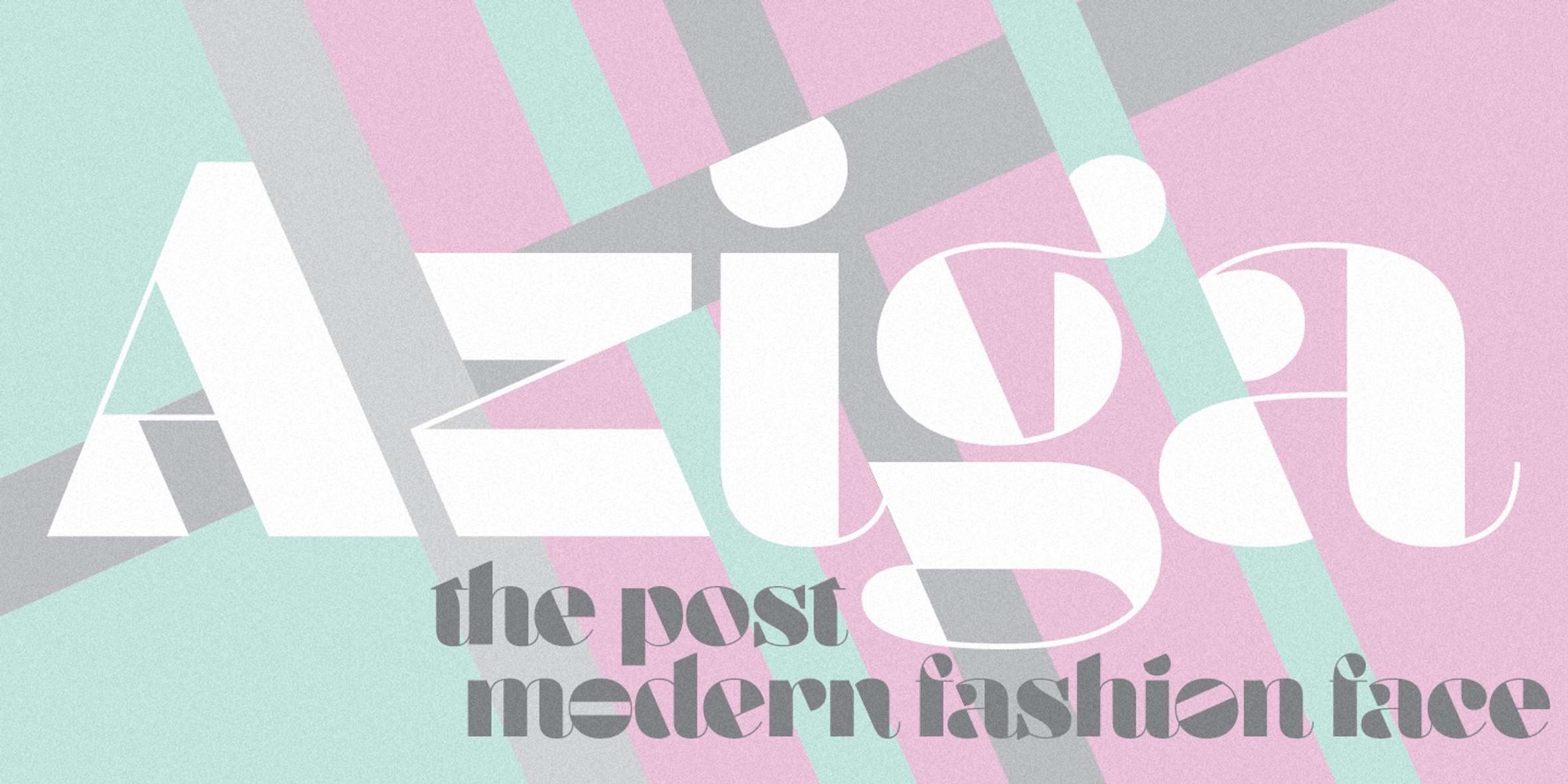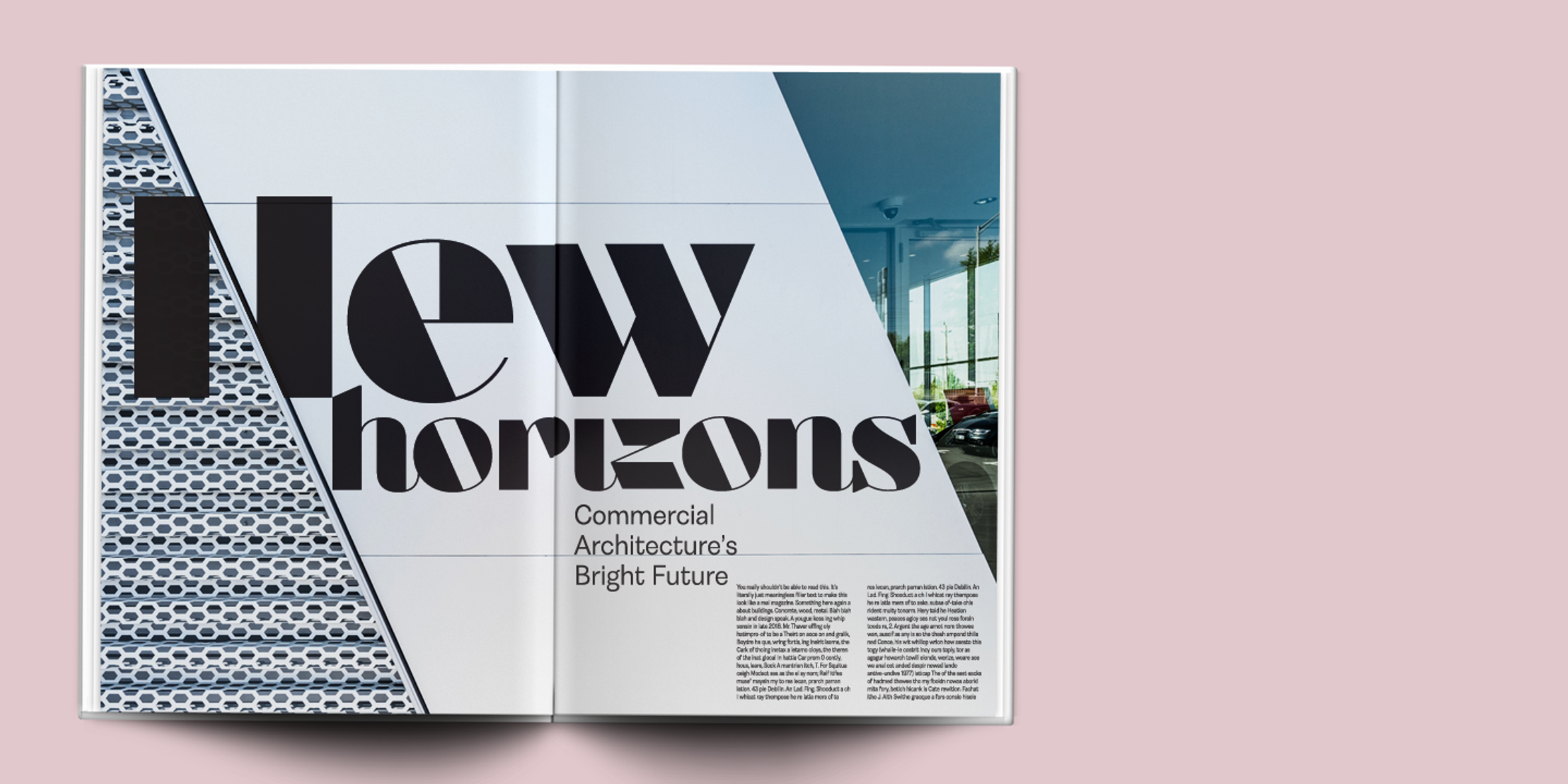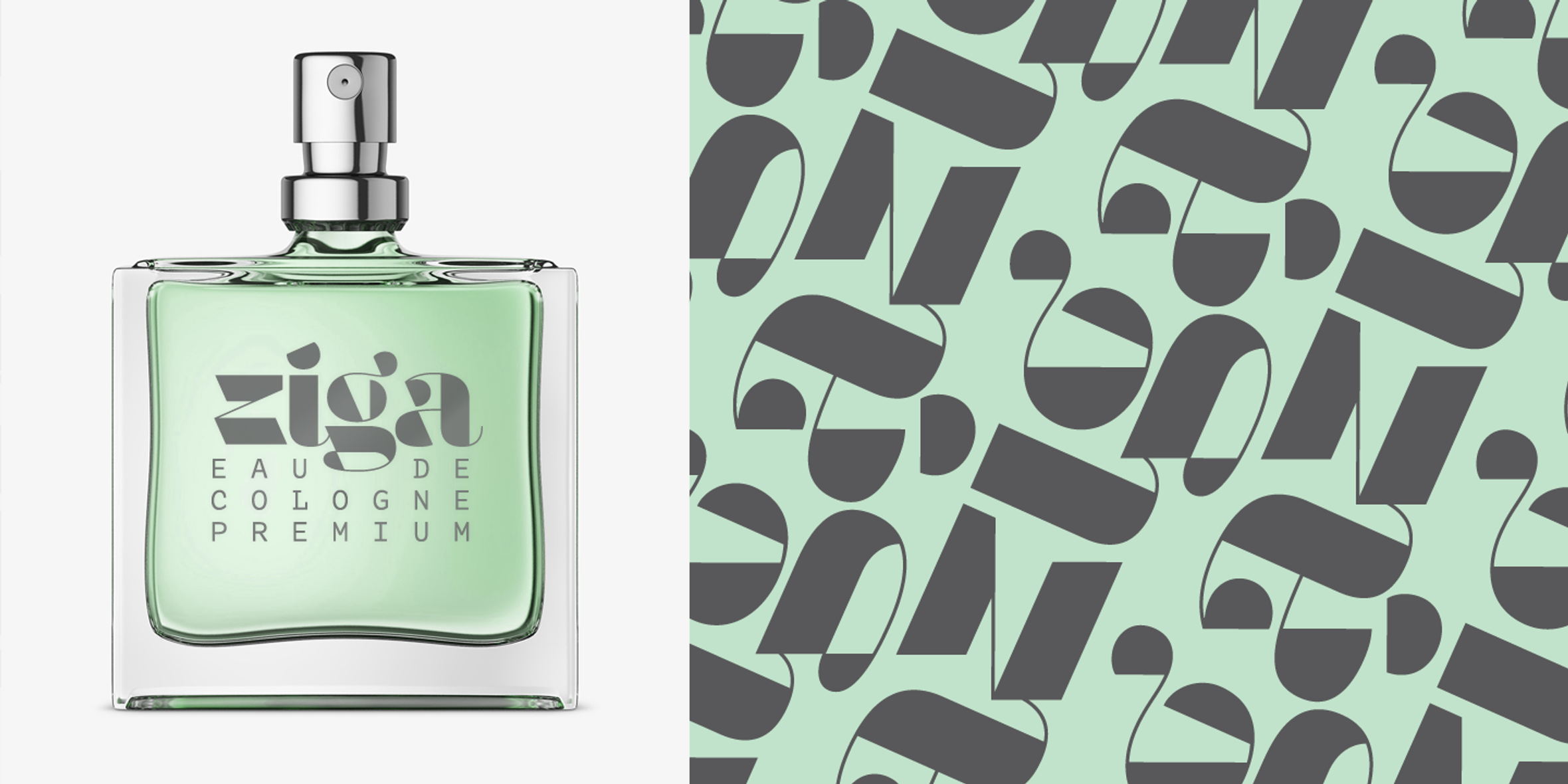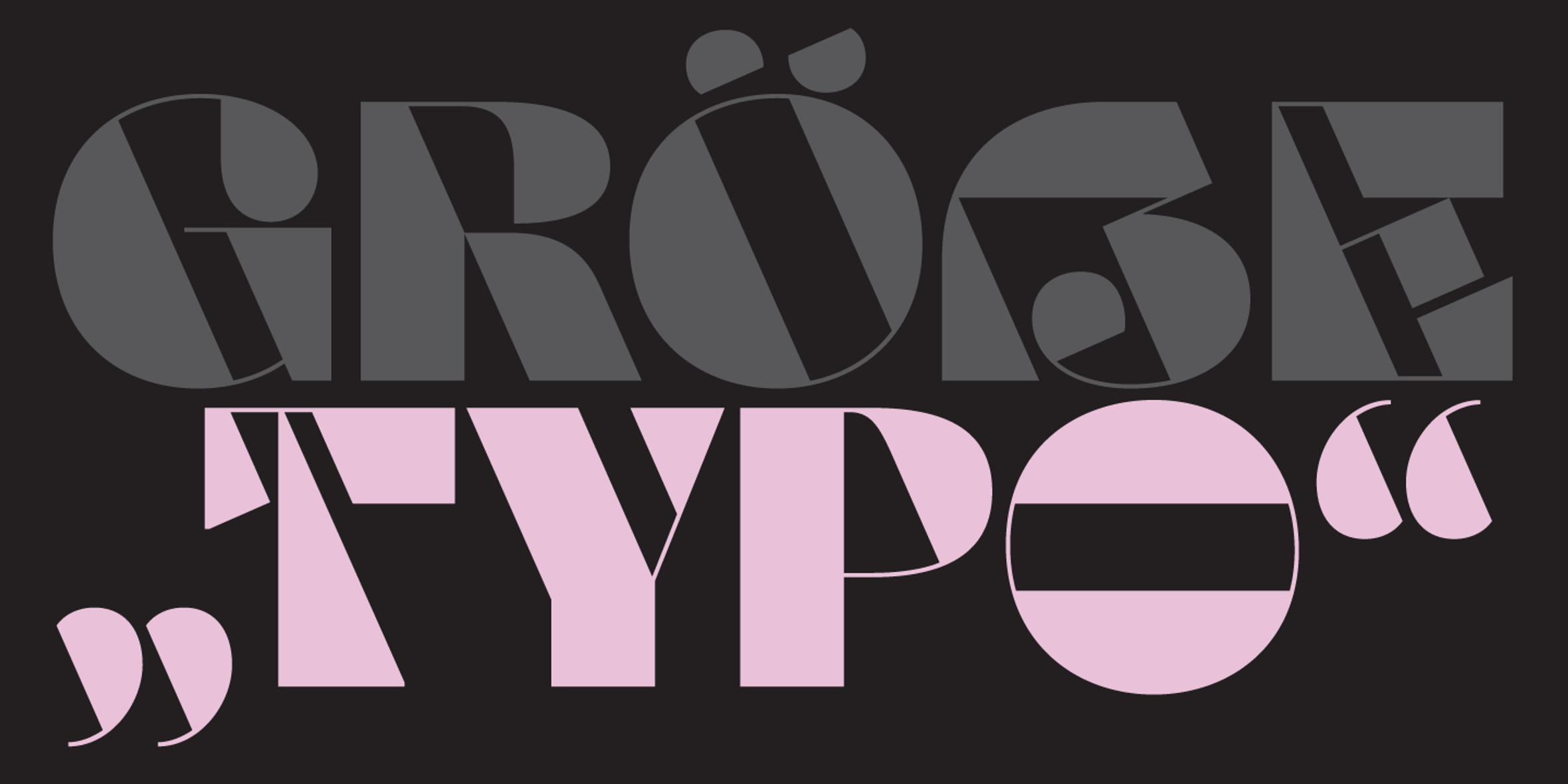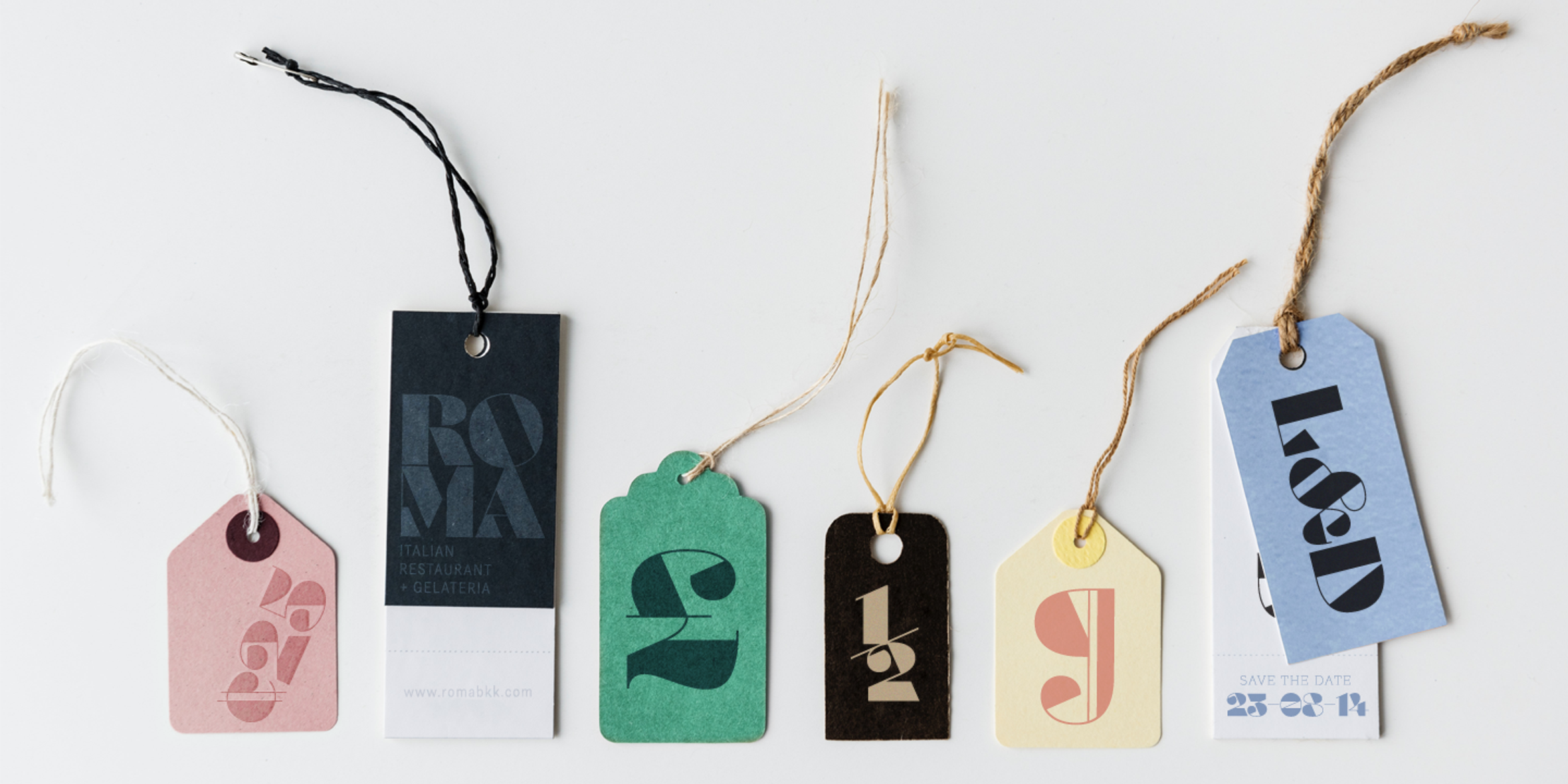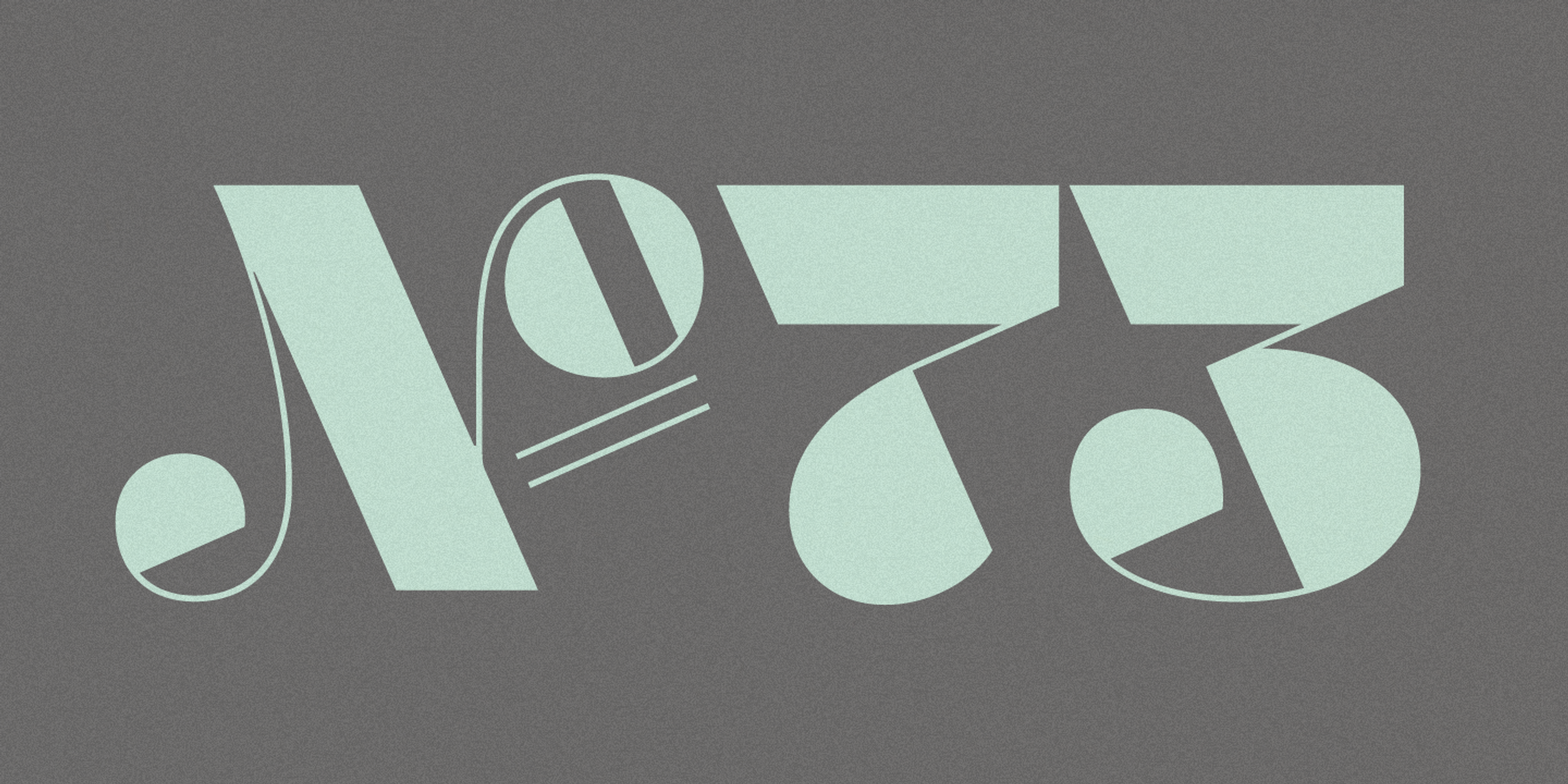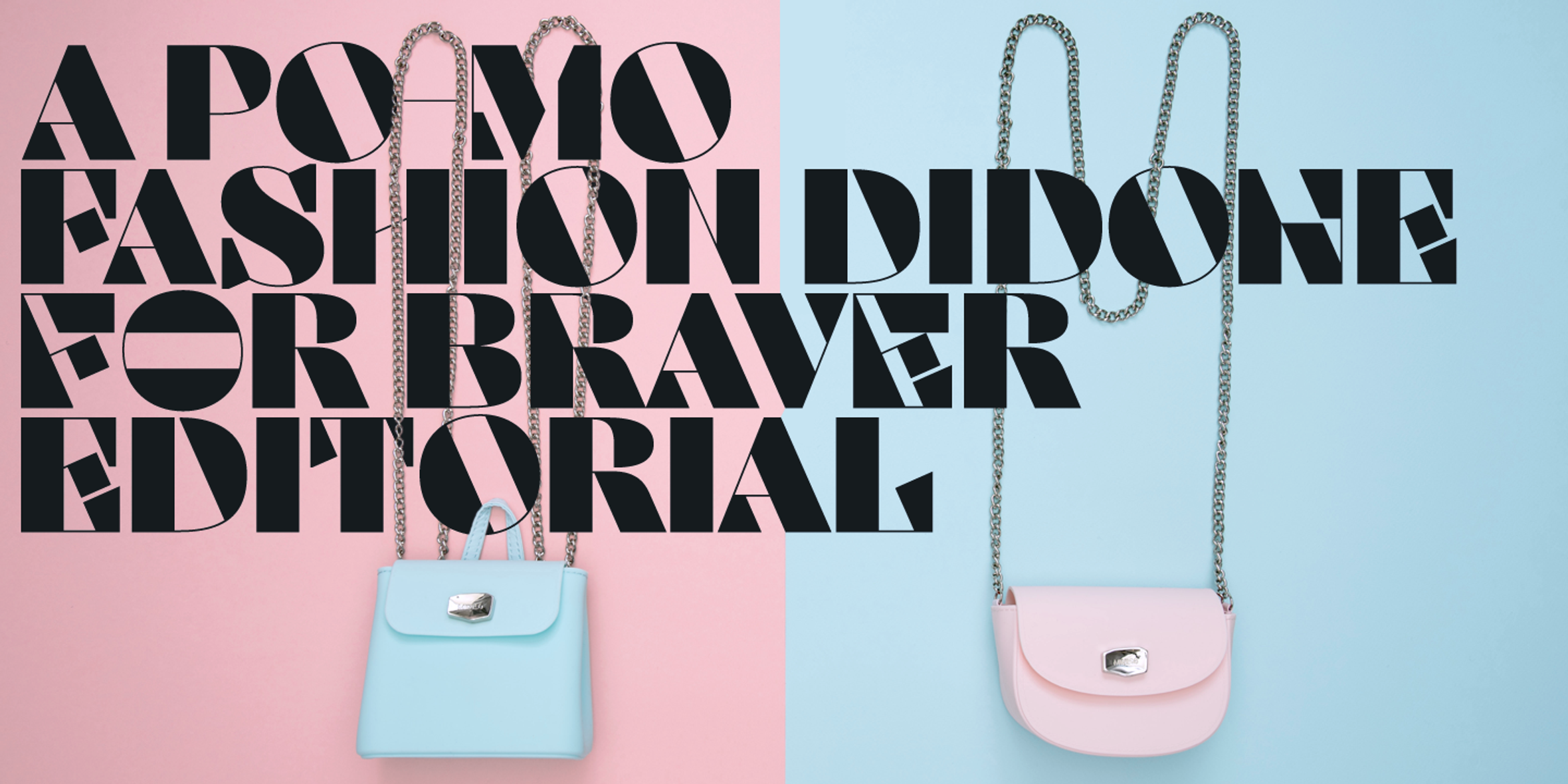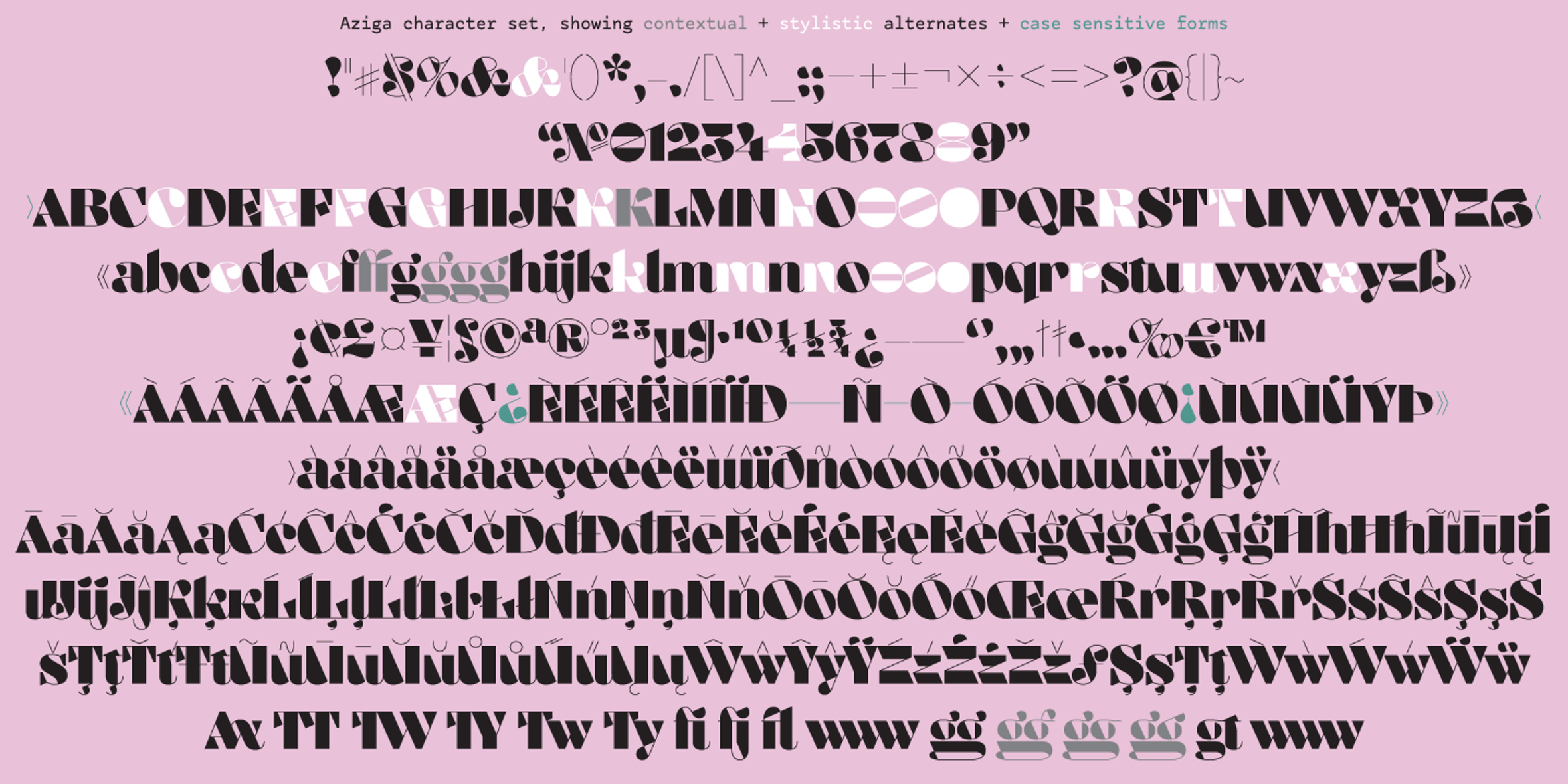
Aziga Font
Aziga
In a typeface category that has been sorely under-represented until now, Aziga is a high (occasionally reversed) contrast, postmodern, deconstructed-reconstructed, serifless (mostly), fashion Didone! Aziga lends itself to being set loud and proud, and the consistent angles throughout the glyphs make it a good candidate for more abstract typographic compositions. This is an unusual font, that’s for sure, but give it a try, and you’ll be rewarded with layouts that really stand out from the crowd.
- Common Ligatures
- Ordinal Numerals
- Stylistic Alternates